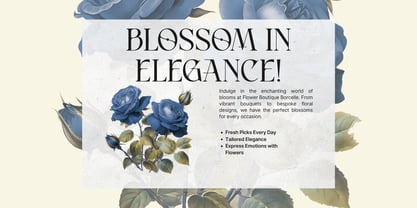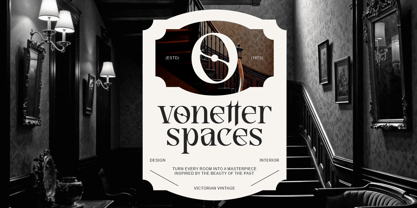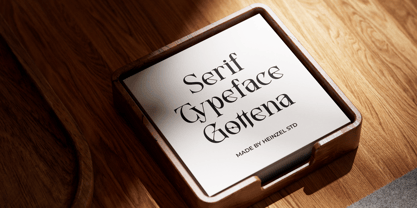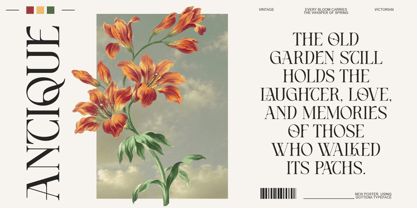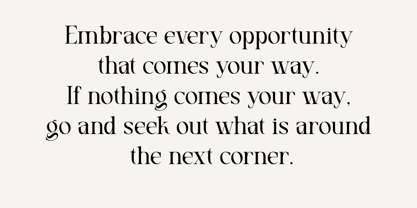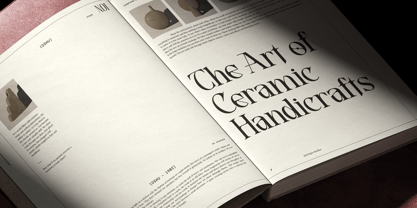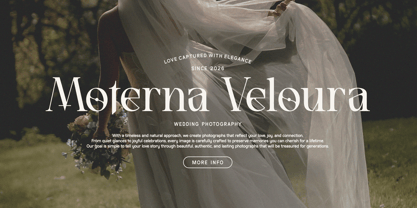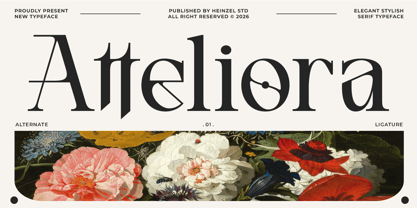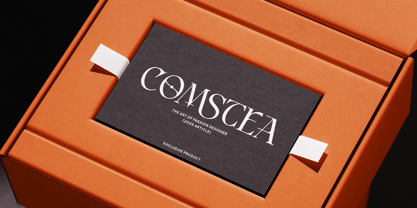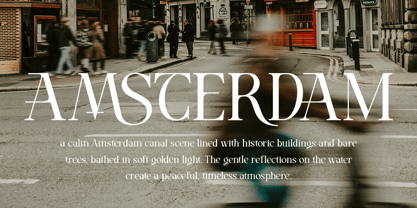
Atteliora
by Heinzel Std
The Atteliora Font Family was designed by Nofi Sofyan Hadi and published by Heinzel Std. Atteliora contains 2 styles and family package options. More about this family
Atteliora is an elegant modern serif font crafted to bring sophistication, luxury, and timeless beauty to every design. Featuring graceful high-contrast letterforms, stylish ligatures, and carefully designed alternate characters, Atteliora delivers a refined editorial aesthetic that is perfect for premium branding and creative projects.
Inspired by classic fashion typography with a contemporary twist, Atteliora creates stunning visual harmony for logos, magazine headlines, cosmetic packaging, wedding invitations, social media graphics, book covers, luxury websites, and boutique branding. Every character has been meticulously designed to ensure exceptional readability while maintaining an artistic and distinctive personality.